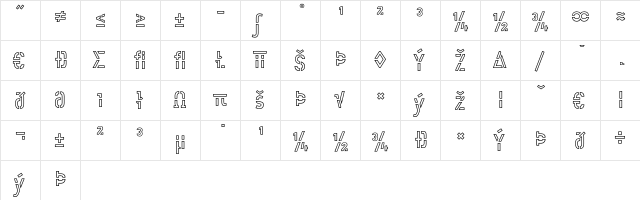
Offline OutlineExpert
Design Context for Offline Typeface
Offline is built around its visual character rather than neutral utility — its distinctive forms are designed to make an impression at display sizes.
Font Pairing: Pair with a clean neutral sans-serif for body copy to let Offline's character lead without overwhelming the composition.
Pro Tip: Treat Offline as the centrepiece of your typographic hierarchy. One strong heading set in a decorative face can carry an entire layout.